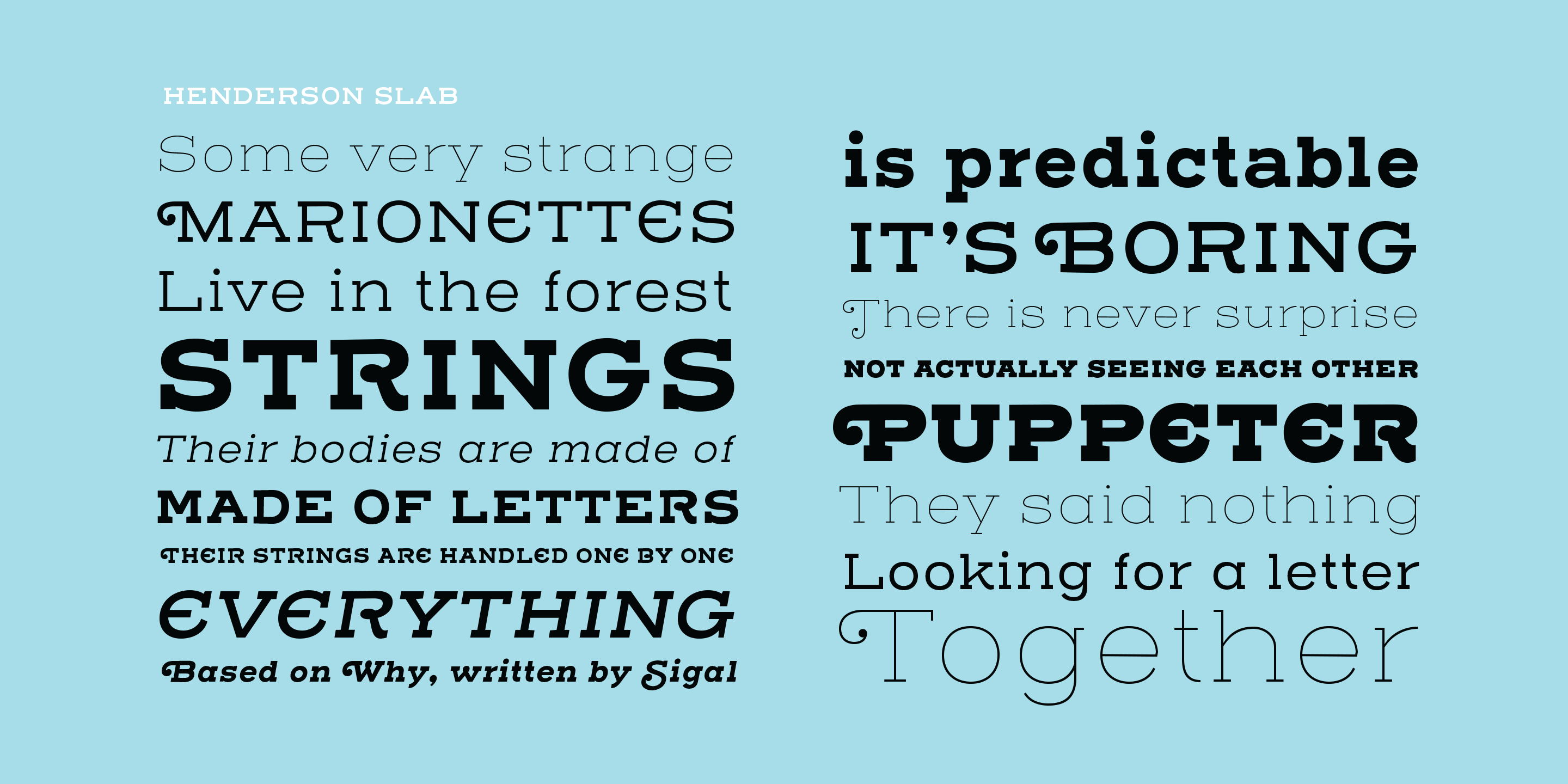
Henderson Slab Font excels in various design applications including sturdy corporate branding, construction company logos, industrial signage projects, architectural firm materials, robust packaging designs, construction site communications, engineering presentations, and solid advertising campaigns. This substantial typeface adapts powerfully to both strong digital platforms and durable print materials, making it perfect for designers seeking slab-serif reliability and construction-grade sophistication in their visual communications.
Henderson Slab Font generates excitement among design professionals due to its solid character and slab-serif styling that instantly conveys strength and architectural stability. The font's robust letterforms and construction-grade proportions create an immediate sense of durability and professional reliability. Its sturdy personality makes it particularly appealing for brands wanting to communicate strength, stability, and solid craftsmanship in their visual identity.
The Henderson Slab Font family includes multiple weights and styles such as Regular, Bold, Light, Heavy, and Condensed variations. Each family member maintains slab-serif design principles while offering distinct structural characteristics. The Light weight provides subtle slab elegance for refined applications, while the Heavy version delivers maximum impact for construction headlines and industrial brand statements.
Industrial designers frequently choose Henderson Slab Font Free Download for projects requiring both structural authenticity and professional distinction. This typeface demonstrates remarkable effectiveness across construction industries including engineering firms, architectural companies, industrial services, and building contractors. Its solid character allows organizations to communicate structural integrity while maintaining excellent readability and robust visual appeal that reflects the strength and reliability of quality construction.